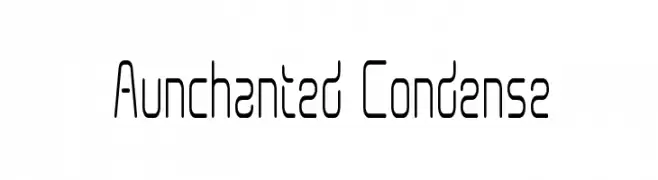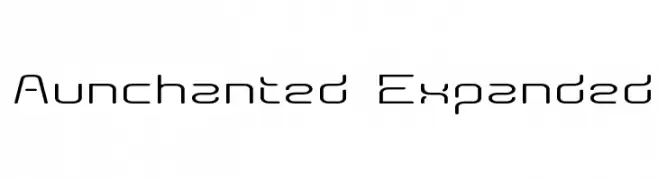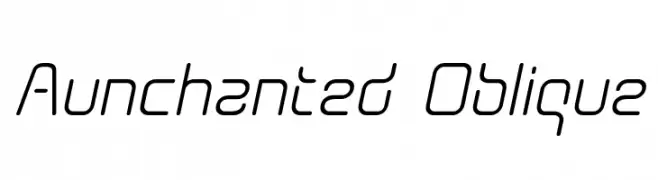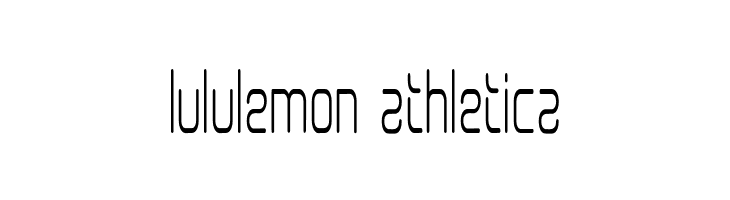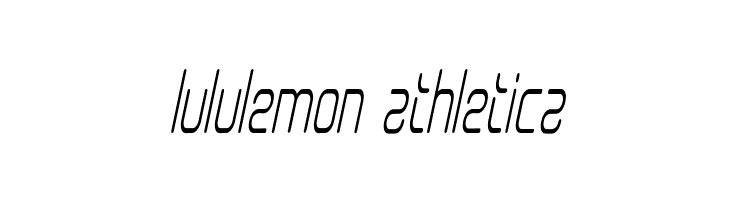
A modern, geometric font with a sleek, futuristic design.
A modern, geometric font with rounded edges and a monospaced style.
A modern, oblique font with a sleek, futuristic design.
A modern, condensed font with sleek, elongated characters and a futuristic style.
A modern, condensed, and oblique font with sleek, elongated characters.
A futuristic, geometric font with clean lines and rounded edges.
A futuristic, geometric font with bold, expanded letterforms and smooth curves.
A futuristic, expanded, and oblique font with a sleek, modern design.
A modern, oblique font with sleek lines and geometric precision.
A modern, geometric font with thin, uniform lines and a minimalist style.